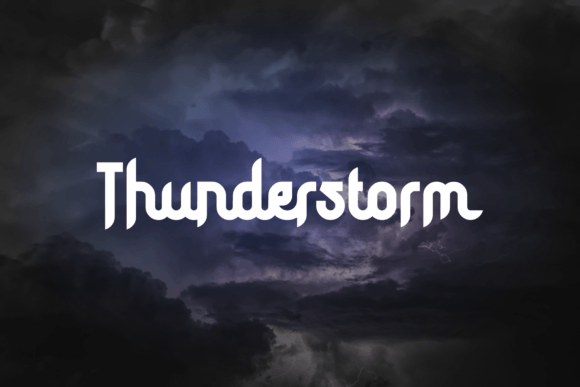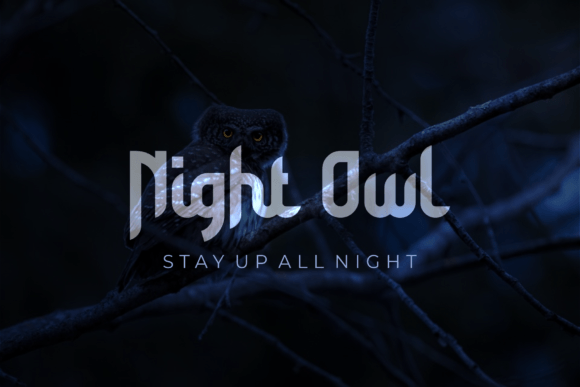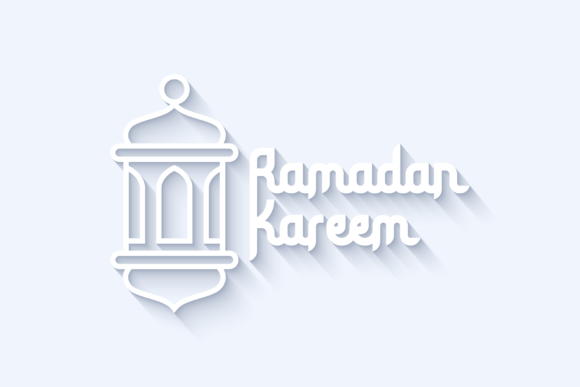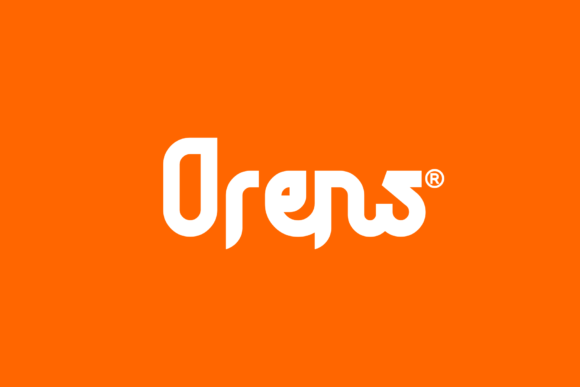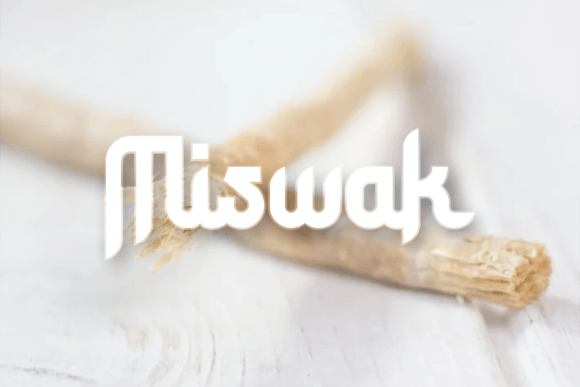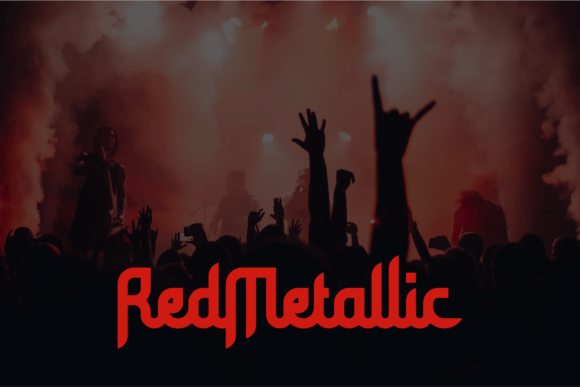
Introduction to Hisbullah Font
Hisbullah is a bold, unique and stylish display font with an Arabic look.
Designed to give a luxurious and elegant impression by combining modern and classic styles to make it timeless, it is suitable for religious, gaming, movie, music themes .
Key Features of Hisbullah Font